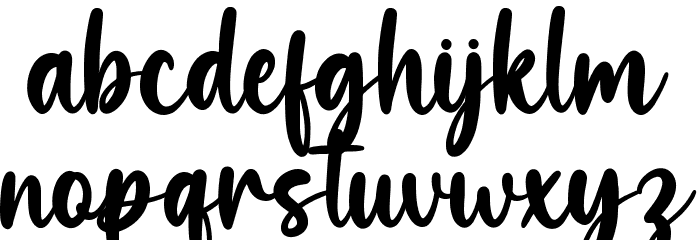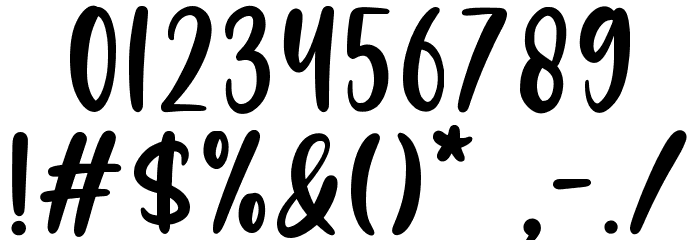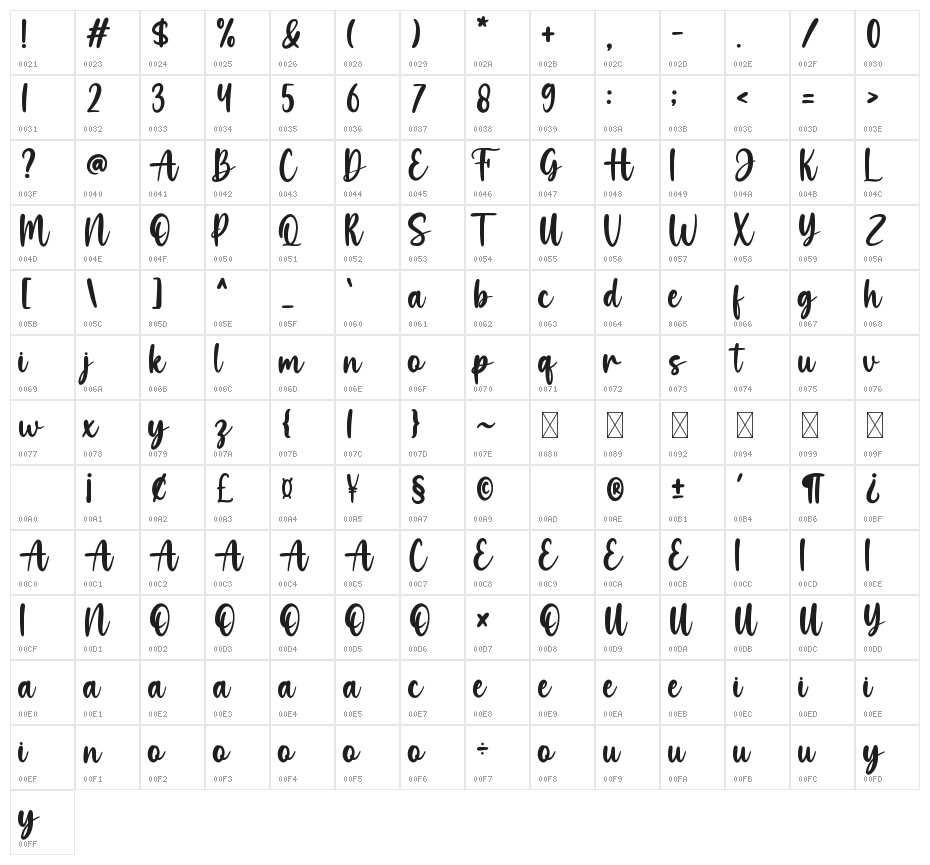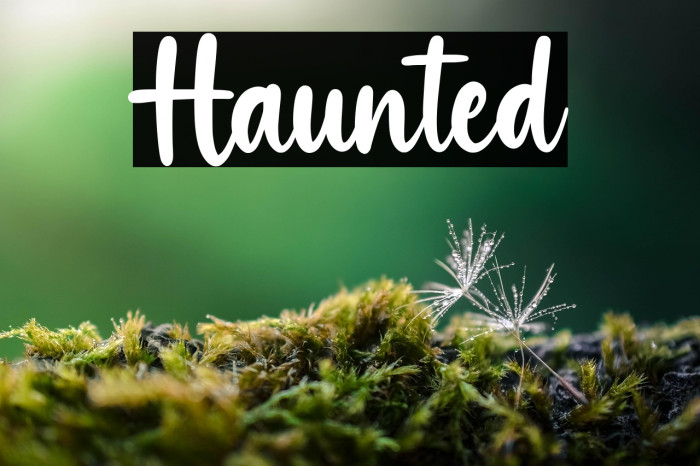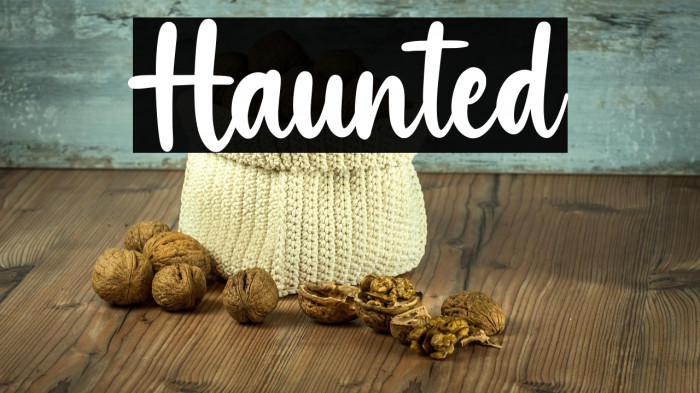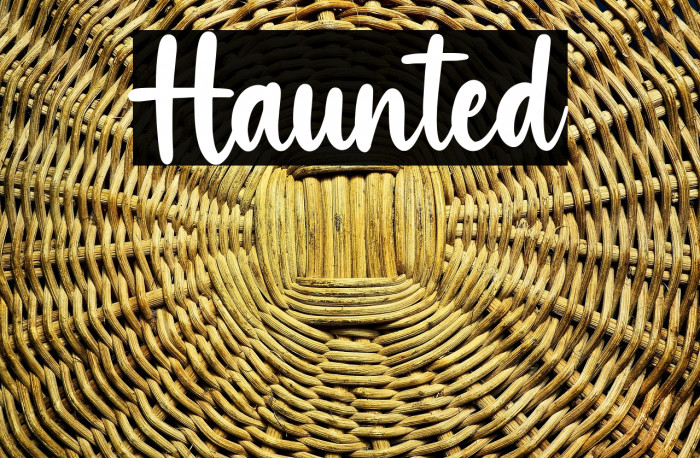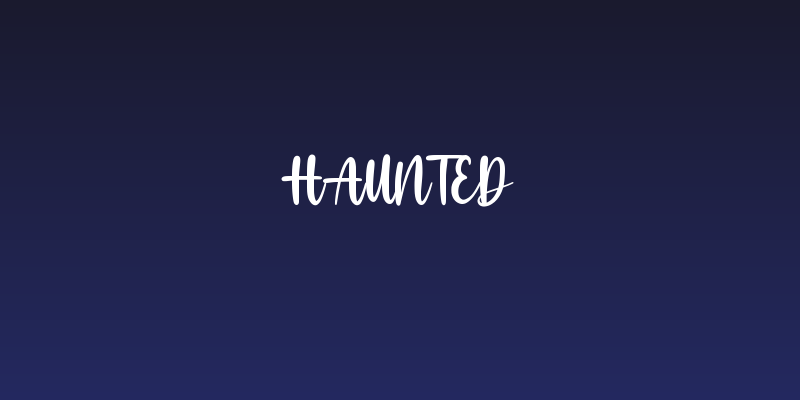
Haunted Font
This font features a bold and expressive handwritten style, characterized by its fluid and dynamic strokes. The letters are connected in a cursive manner, giving it a lively and energetic appearance. The uppercase letters are tall and slightly slanted, while the lowercase letters maintain a consistent flow with rounded edges. Numbers and special characters are crafted with the same playful and bold aesthetic, ensuring a cohesive look across all glyphs. The overall design is both modern and artistic, making it suitable for creative and informal applications.
A bold, cursive handwritten font with fluid and dynamic strokes.
- Proposed Projects: Ideal for greeting cards, invitations, posters, and branding projects that require a personal and artistic touch.
- Use Case: Headlines, Logos, Invitations